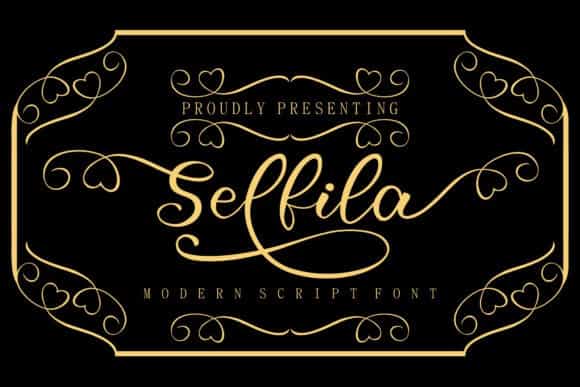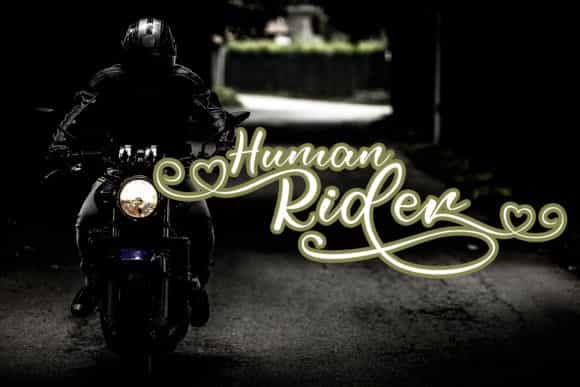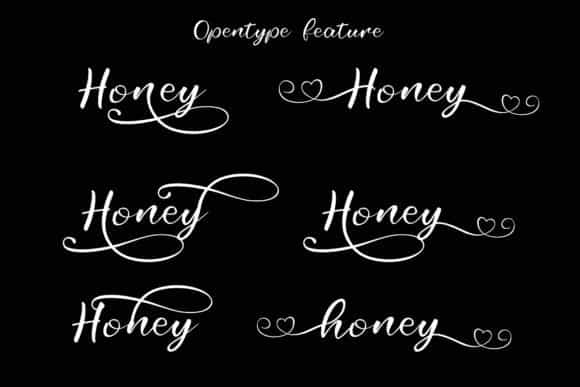
Selfila is a cool calligraphy font that has different baselines, smooth lines and the classic touch which makes it look elegant. Those of you who are in need of a bit of grace and trendiness for your designs or branding, this font can be used for various purposes such as headings, signature, logos, wedding invitation, t-shirt design.